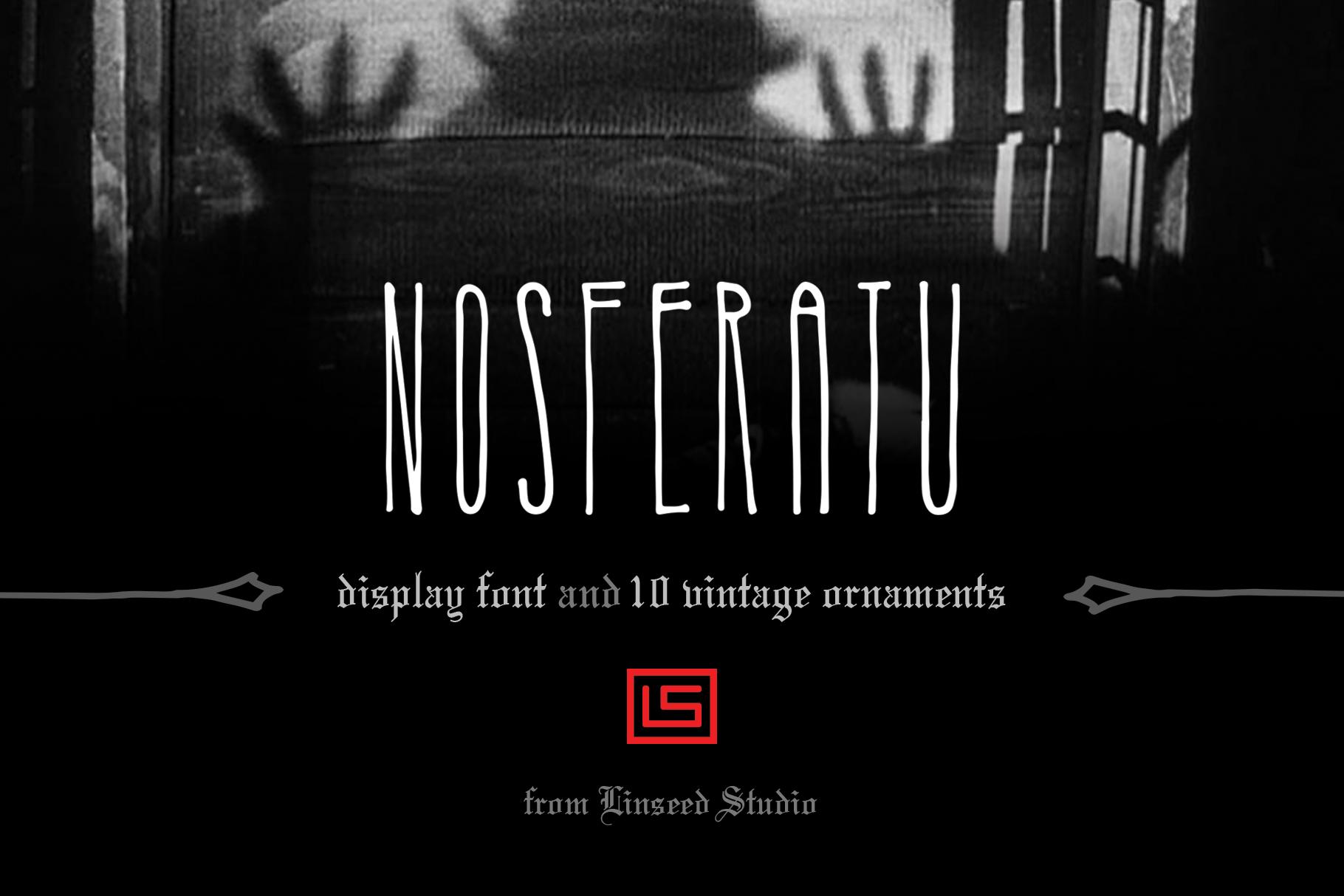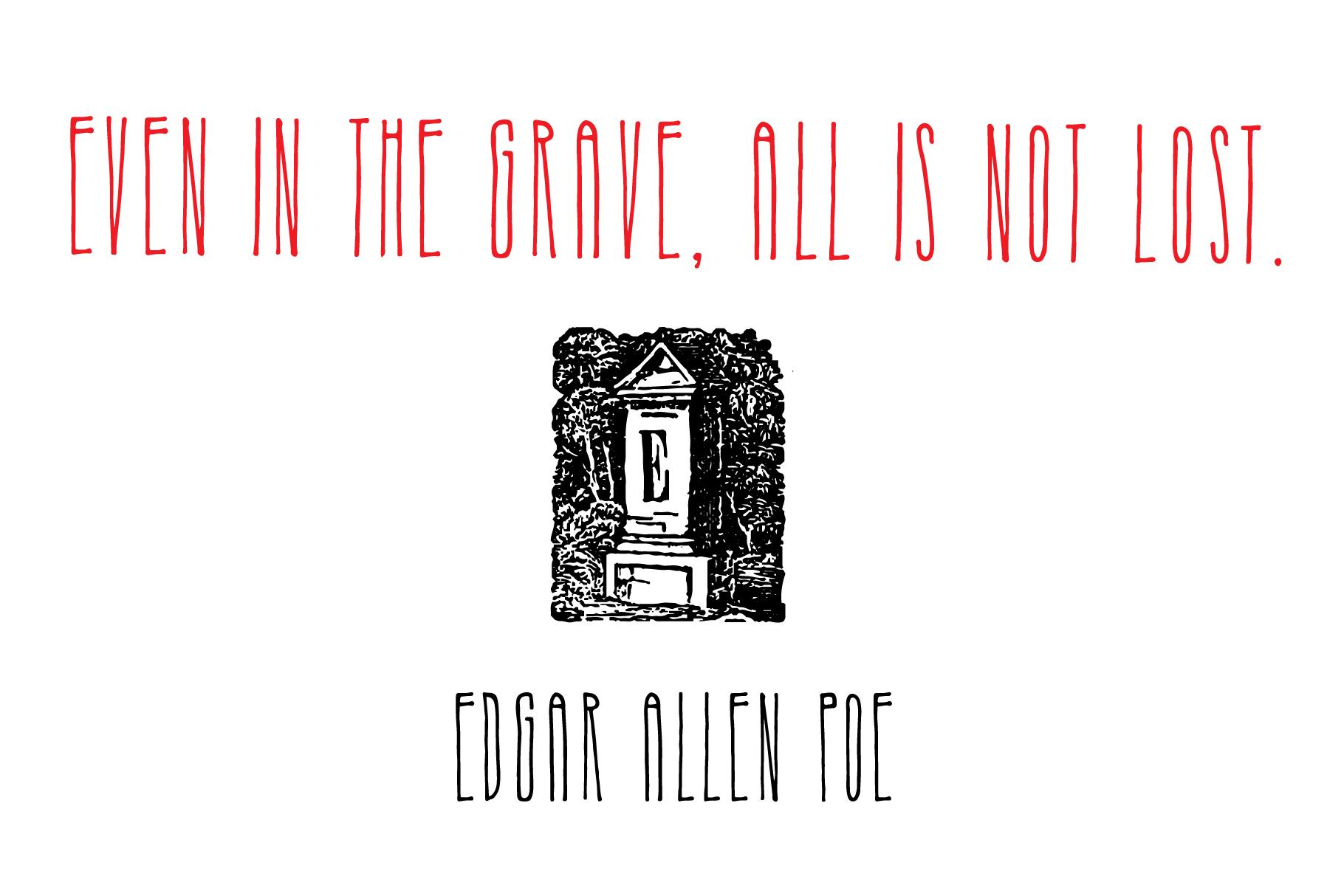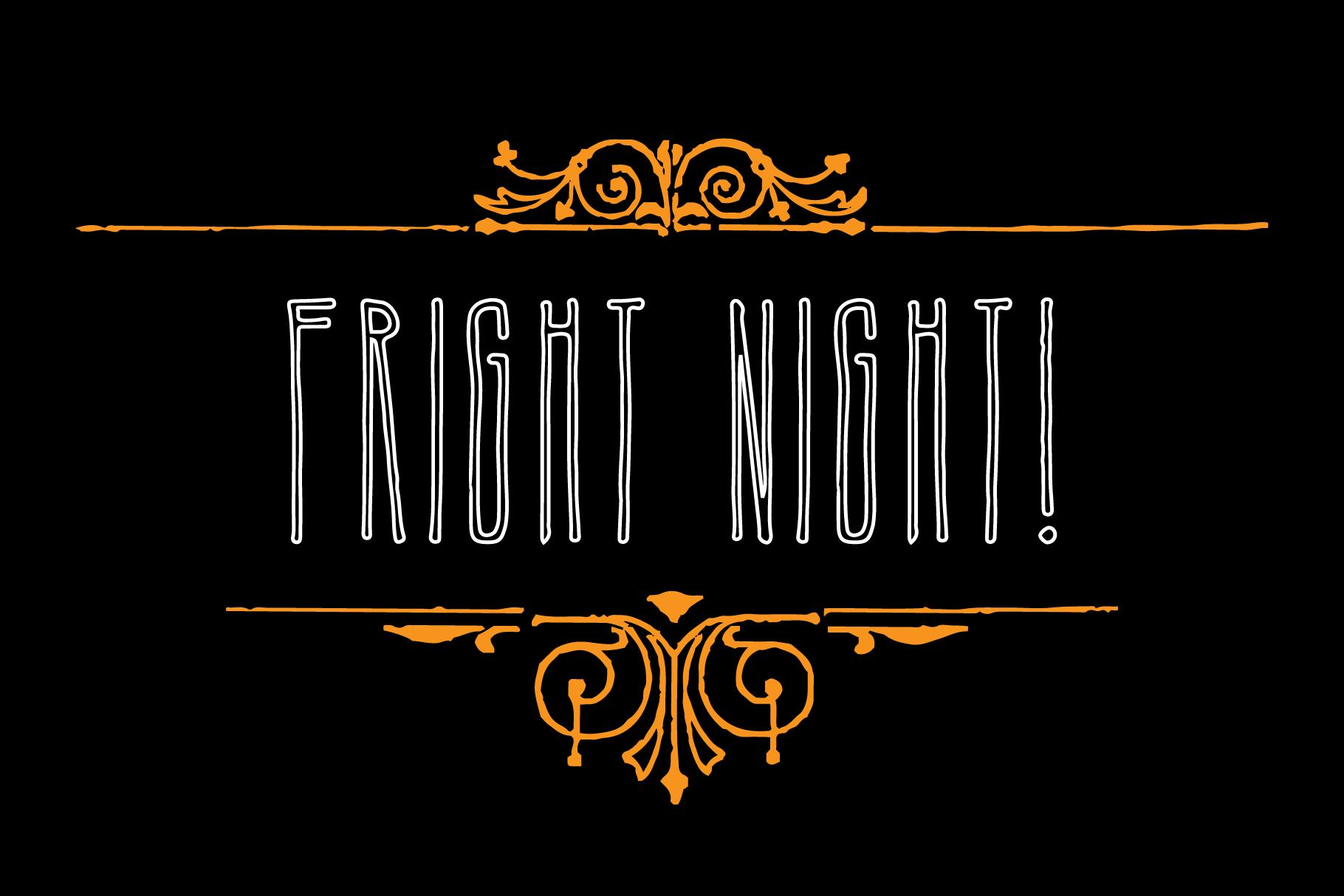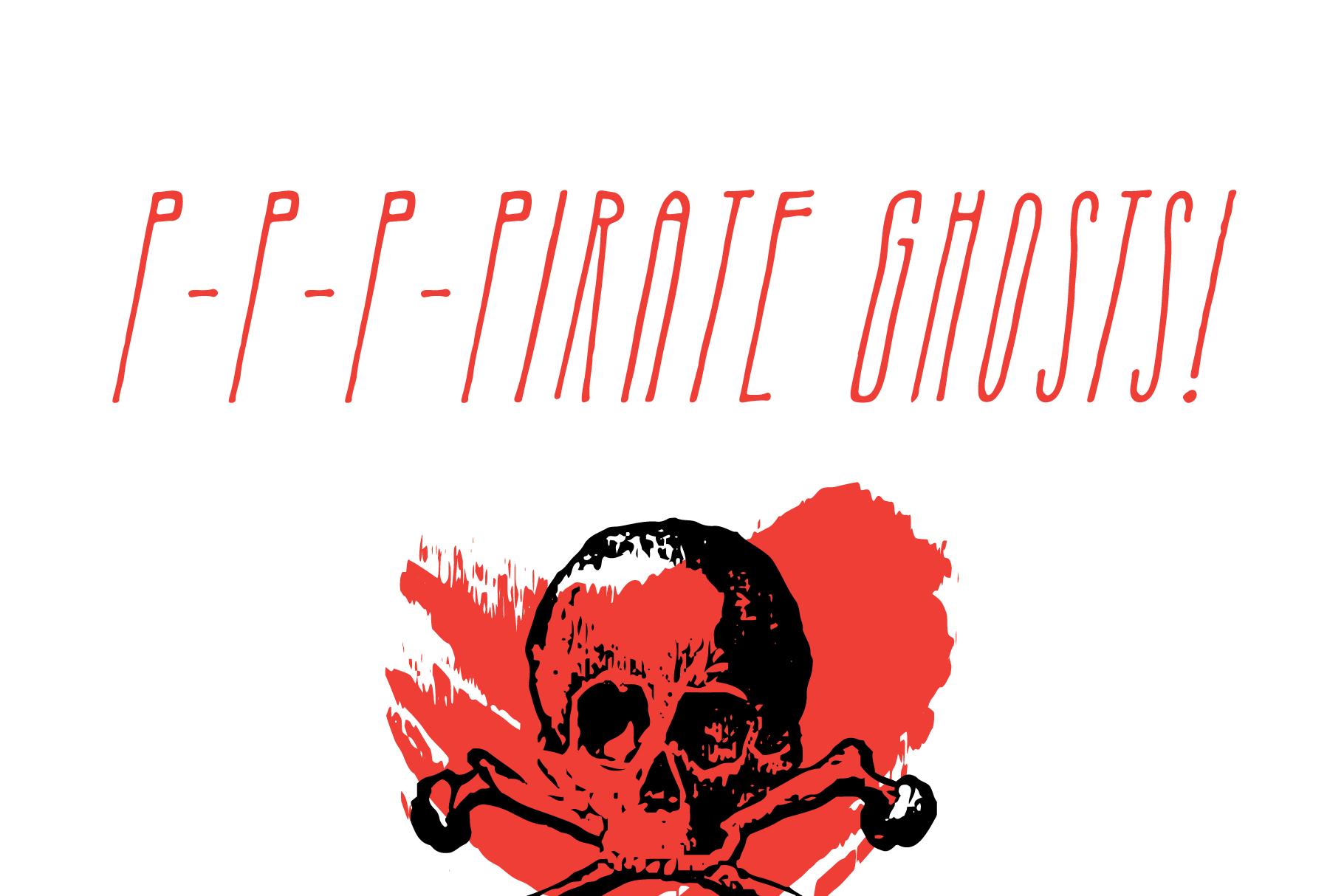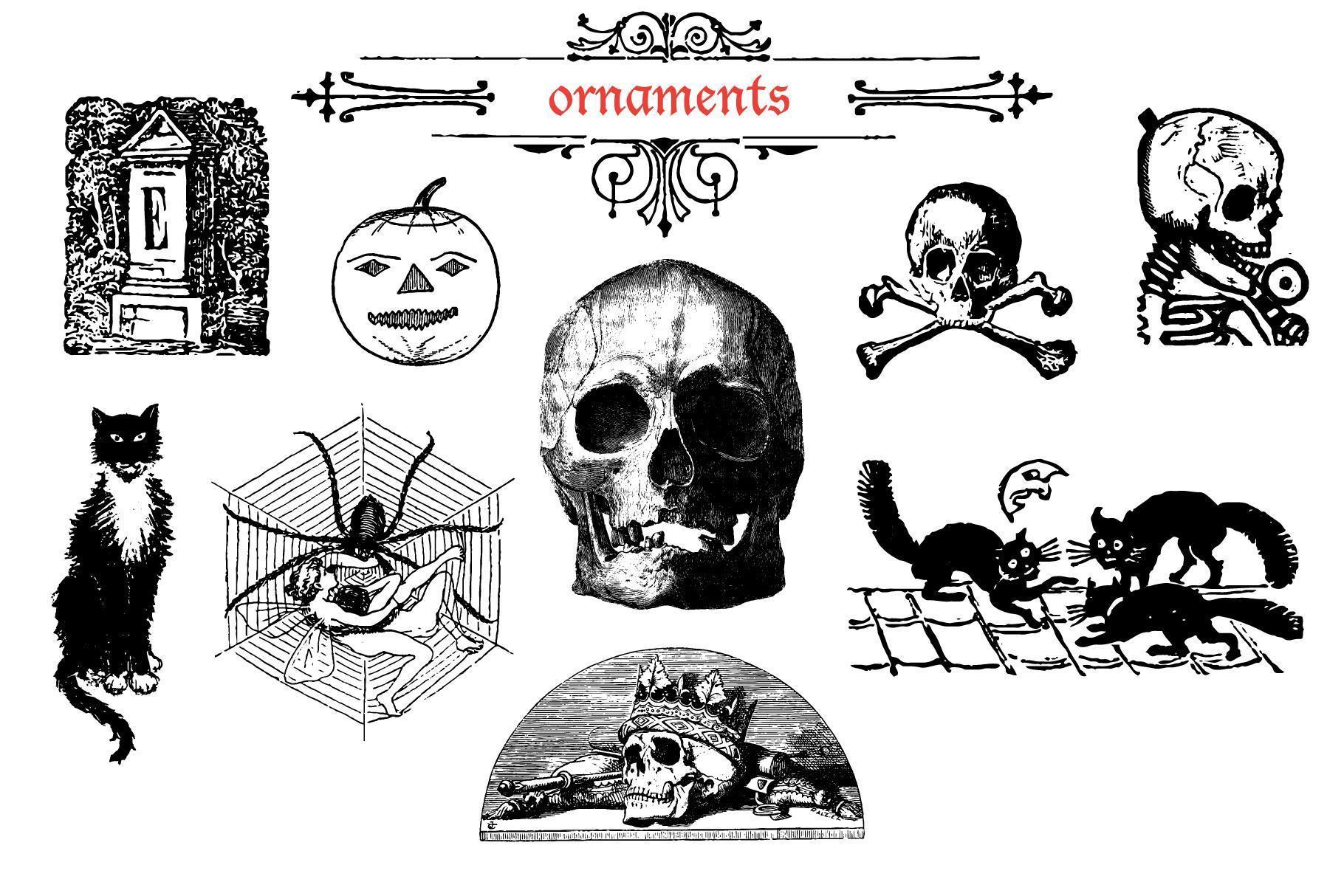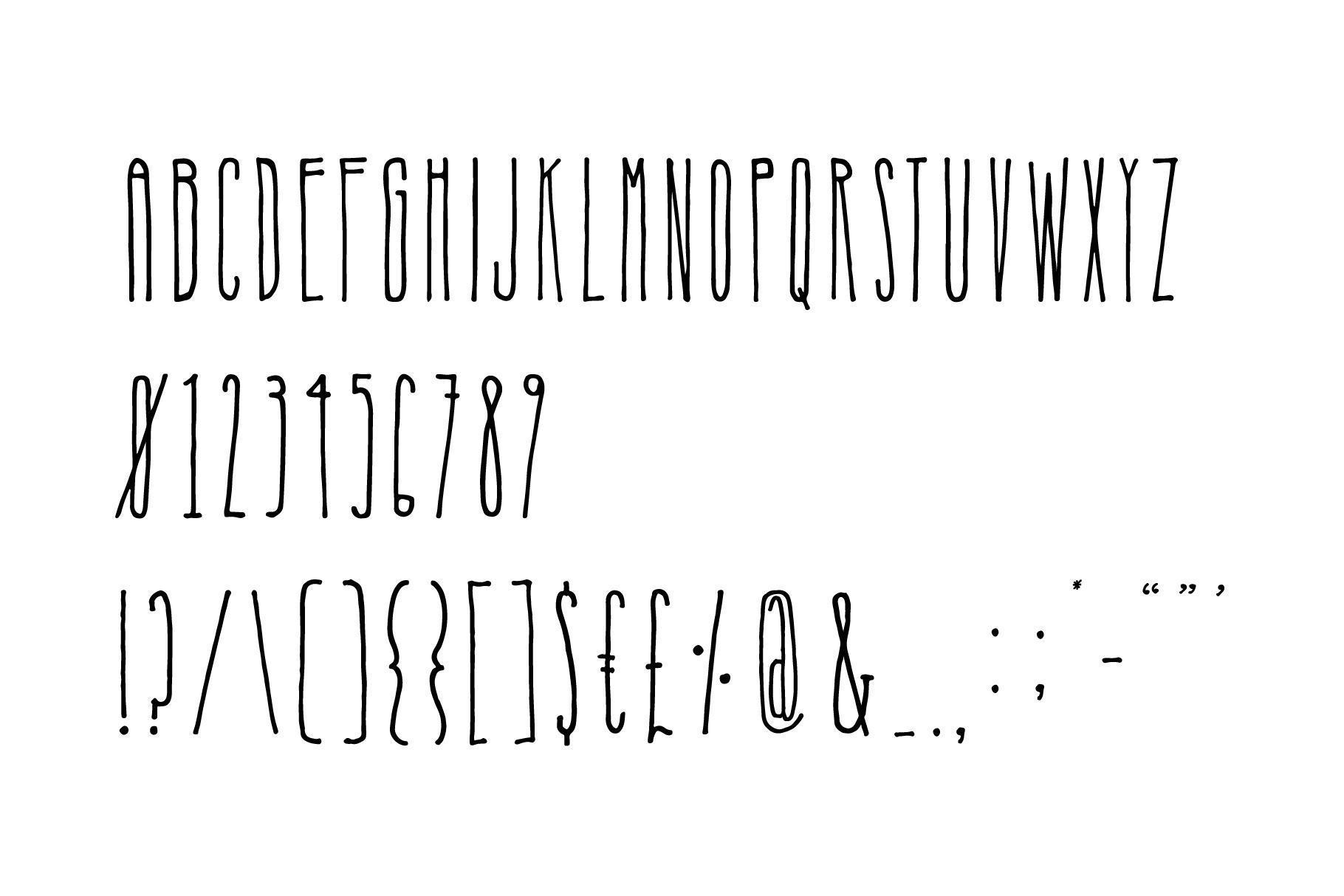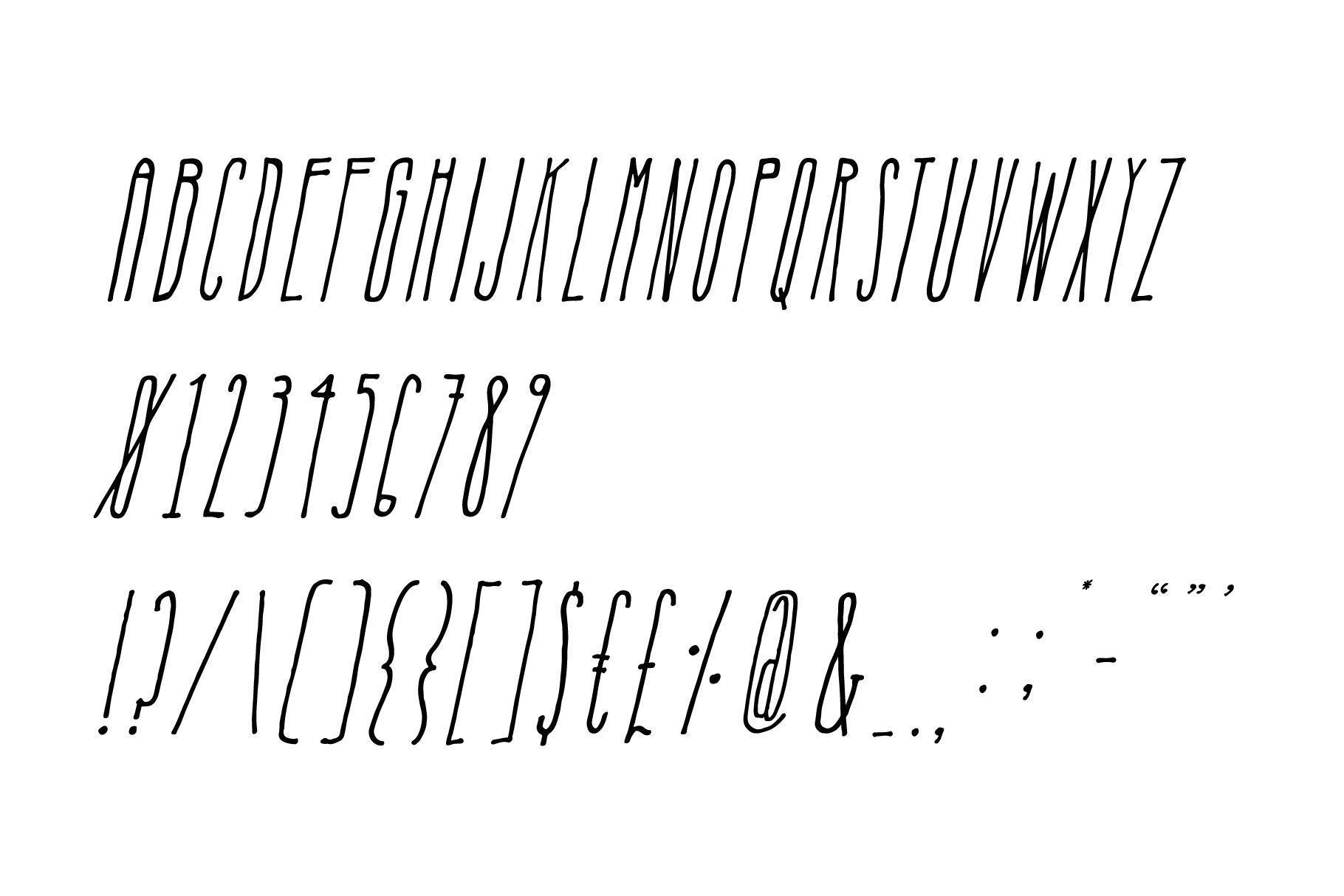
Nosferatu Font Family
Edgar Allen Poe Quote
Fright Night
Pirate Ghosts
Halloween Ornaments
Nosferatu Font Family 6
Nosferatu Font Family 7
Nosferatu Font Family 8
Nosferatu Font Family
Nosferatu is a hand-drawn, sans-serif display font family. Inspired by early 20th century handmade lettering, it evokes what that one might associate with it’s namesake: vintage horror and German Expressionist stylings. It’s exaggerated height and shivery edges are ideal for Halloween decorations and invitations, movie posters, logos, book covers and basically anything that calls for cryptic and distinctive.
• Nosferatu Regular
• Nosferatu Italic
• Nosferatu Outline
• A-Z Uppercase
• A-Z Lowercase
• Numbers
• Punctuation
• Symbols
You’ll also get a set of 10 creepy vintage ornaments to complete your Halloween themed designs!